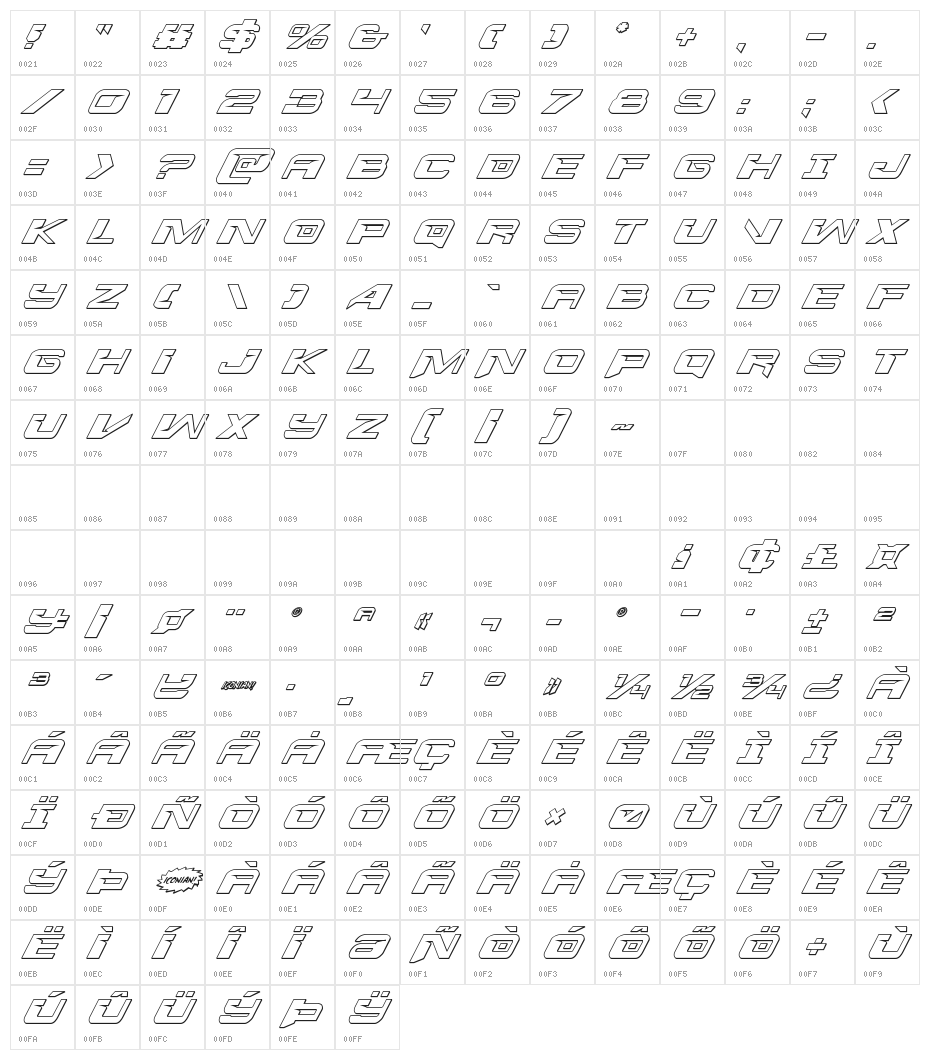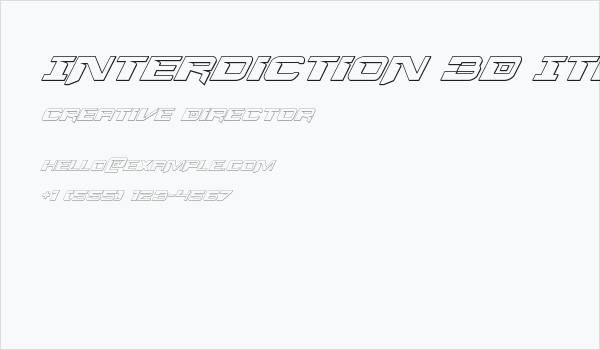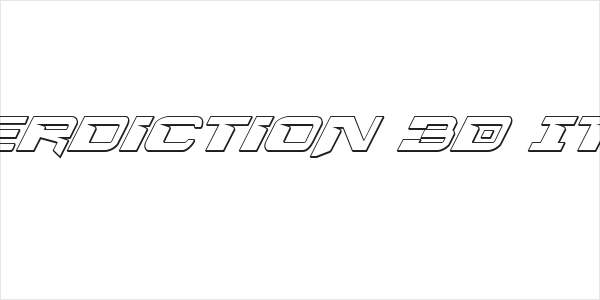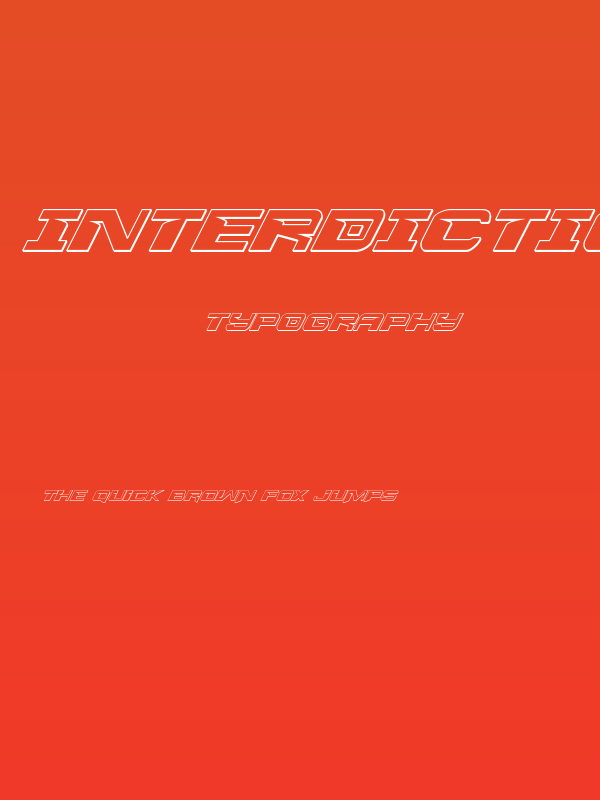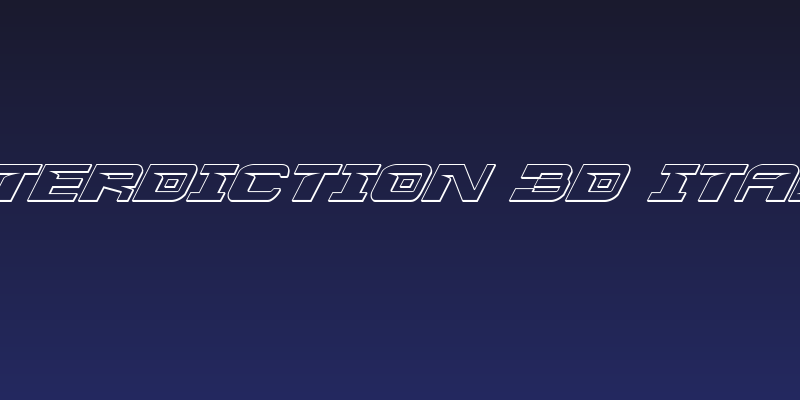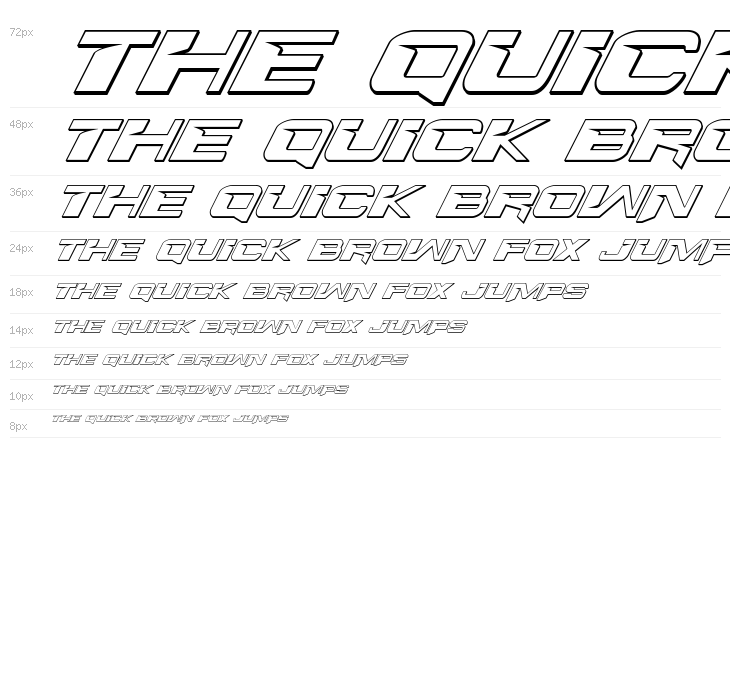
Interdiction 3D Italic Font
Interdiction 3D Italic Description
This font features a bold, three-dimensional effect with an italic slant, giving it a dynamic and futuristic appearance. The characters are outlined, creating a hollow effect that enhances the 3D illusion. The geometric shapes and sharp angles contribute to a modern, tech-inspired aesthetic. The uppercase and lowercase letters maintain a consistent style, with the numbers and special characters following suit. This font is ideal for projects that require a bold statement and a sense of movement or speed.
INTERDICTION-3D-ITALIC UPPERCASE
INTERDICTION-3D-ITALIC LOWERCASE
INTERDICTION-3D-ITALIC OTHER CHARS
| Proposed Projects | Ideal for video game titles, tech company logos, futuristic posters, and sci-fi themed designs. |